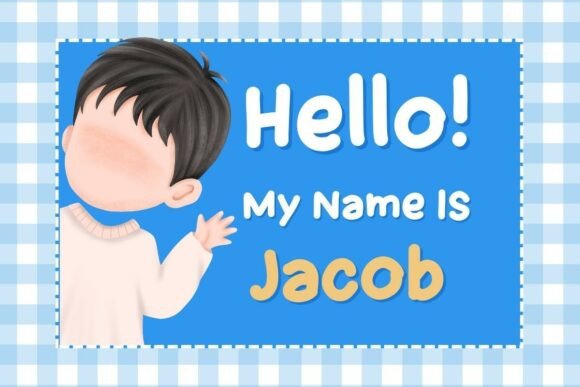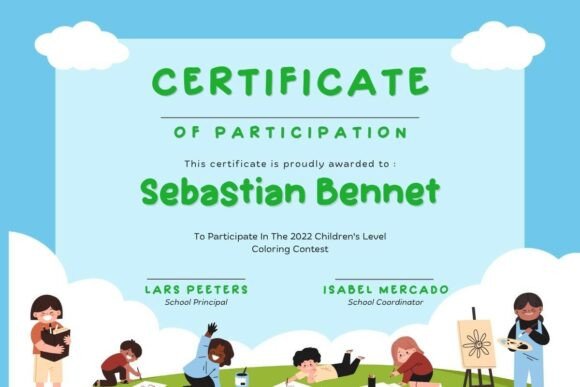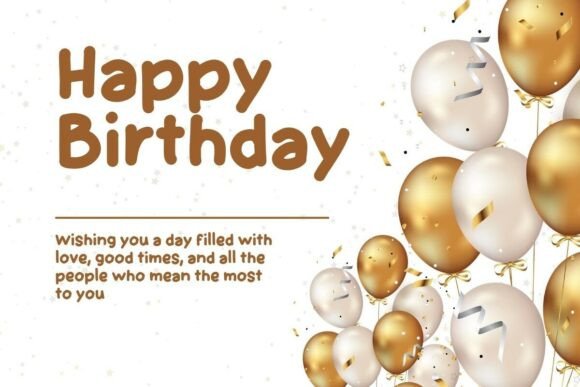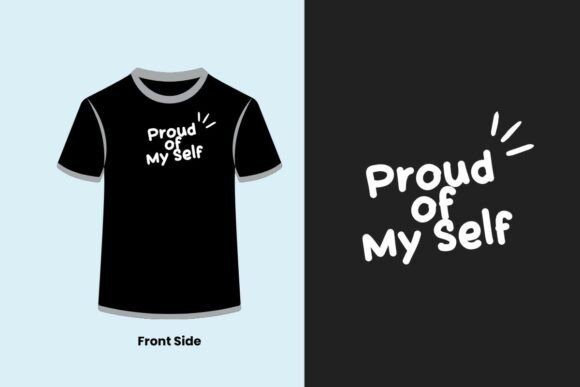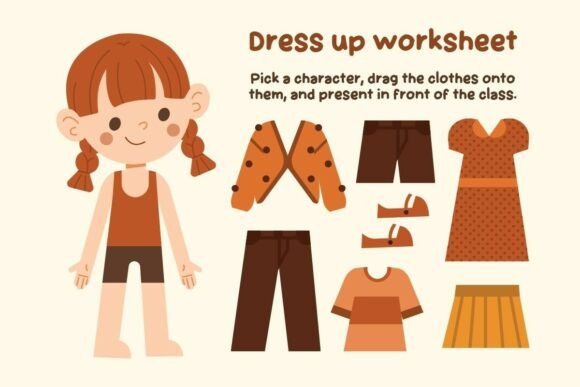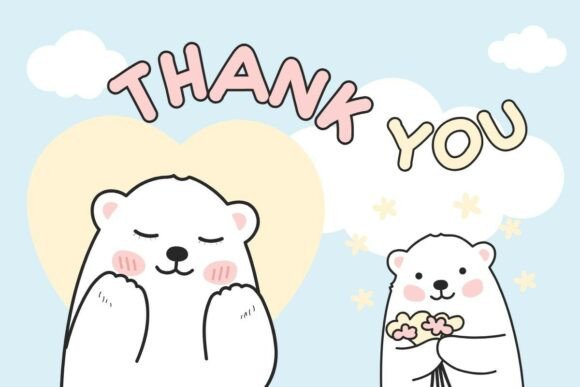
Unlock the Joy of Design with Big Bear Font
Are you tired of using the same old fonts in your design projects? Do you want to add a touch of personality and whimsy to your creations? Look no further than Big Bear Font, a hand-drawn, rounded sans-serif font that’s sure to bring a smile to your projects. With its bold, chunky strokes and friendly curves, Big Bear Font strikes the perfect balance between playful energy and clear legibility.
What is Big Bear Font?
Big Bear Font is a unique and charming font that’s perfect for designers and crafters who want to add a personal touch to their work. This font is hand-drawn, which means that each letter and character has its own special character and quirks. The rounded sans-serif design gives Big Bear Font a friendly and approachable feel, making it perfect for projects that need a bit of warmth and personality.
Characteristics of Big Bear Font
So, what makes Big Bear Font so special? Here are just a few of its key characteristics:
• Hand-drawn design: Each letter and character is carefully crafted by hand, giving Big Bear Font a unique and personal feel.
• Rounded sans-serif design: The rounded edges and lack of serifs give Big Bear Font a friendly and approachable feel.
• Bold, chunky strokes: The bold strokes used in Big Bear Font make it perfect for headlines, titles, and other display text.
• Clear legibility: Despite its playful design, Big Bear Font is still highly legible, making it perfect for body text and other longer-form content.
Who is Big Bear Font for?
Big Bear Font is perfect for a wide range of designers and crafters, including:
• Children’s content creators: Big Bear Font is perfect for creating fun and engaging content for kids, such as children’s books, educational materials, and games.
• Lifestyle brand designers: If you’re creating content for a trendy lifestyle brand, Big Bear Font is a great choice. Its playful design and friendly feel make it perfect for brands that want to appear approachable and fun.
• Crafters and scrapbookers: Big Bear Font is also perfect for crafters and scrapbookers who want to add a personal touch to their projects.
How to Use Big Bear Font
Using Big Bear Font is easy! Here are a few tips to get you started:
• Use it for headlines and titles: Big Bear Font is perfect for headlines and titles, where its bold, chunky strokes can really make an impact.
• Pair it with other fonts: Big Bear Font also pairs well with other fonts, such as serif fonts or script fonts. Experiment with different combinations to find the one that works best for your project.
• Experiment with colors and textures: Big Bear Font looks great in a wide range of colors and textures. Don’t be afraid to experiment and find the combination that works best for your project.
In conclusion, Big Bear Font is a unique and charming font that’s perfect for designers and crafters who want to add a personal touch to their work. Its hand-drawn design, rounded sans-serif style, and bold, chunky strokes make it perfect for a wide range of projects, from children’s content to lifestyle branding. So why not give Big Bear Font a try and unlock the joy of design?